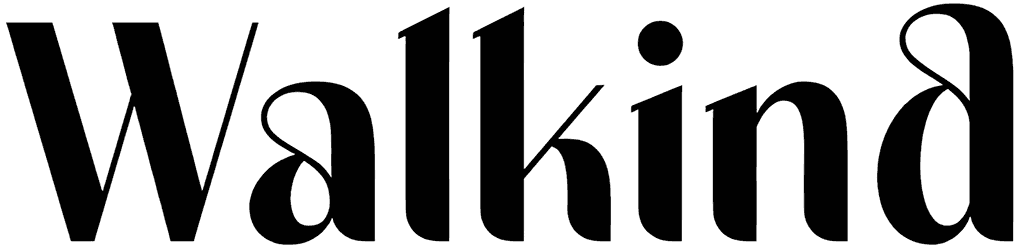
Walkind Font
If you are searching for a nice-looking serif font for your upcoming project to make a good impression on the public eye, you are in the right place. Walkind font offers a unique display with a flavor of freshness and vitality.
This font can be applied perfectly for business cards, movie posters, product packaging, social media posts, and those designs that want to represent a modern feel.